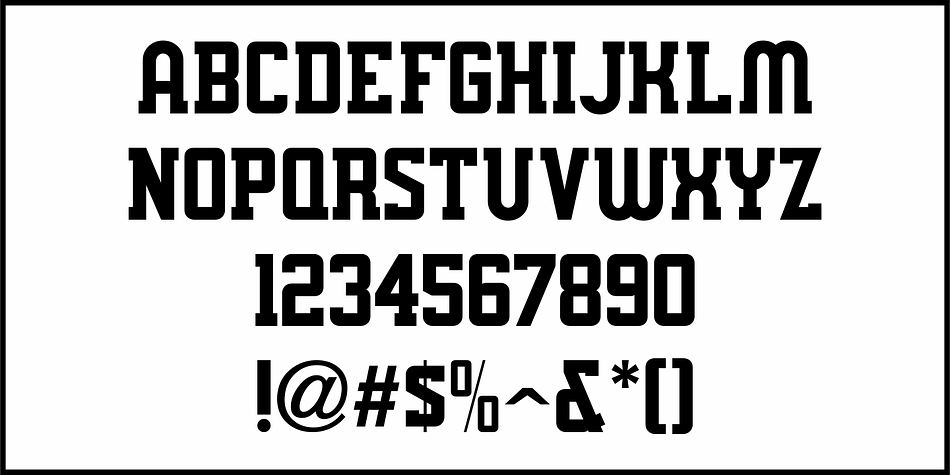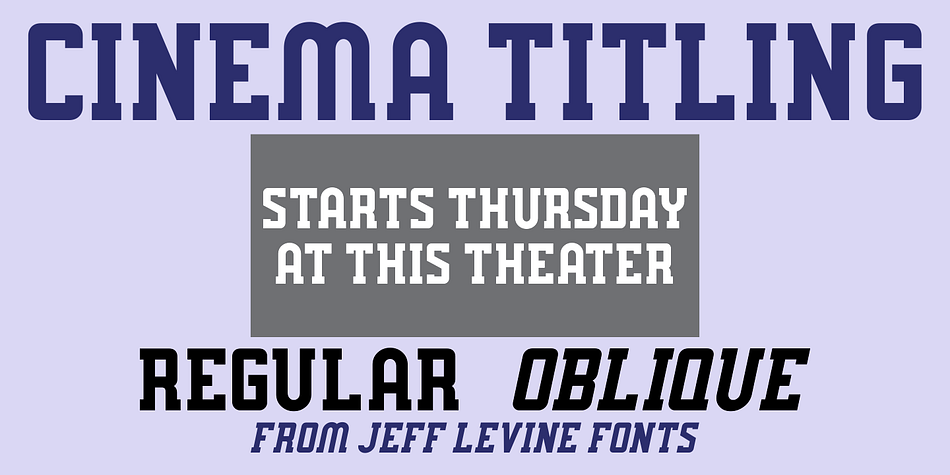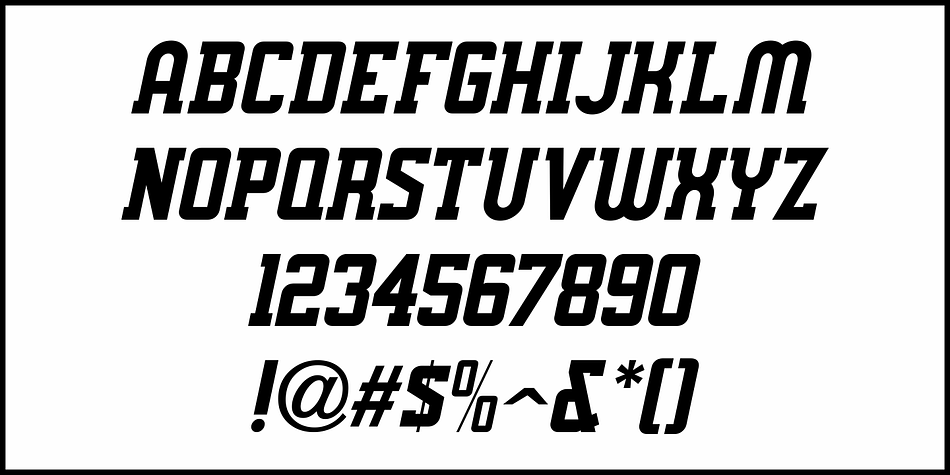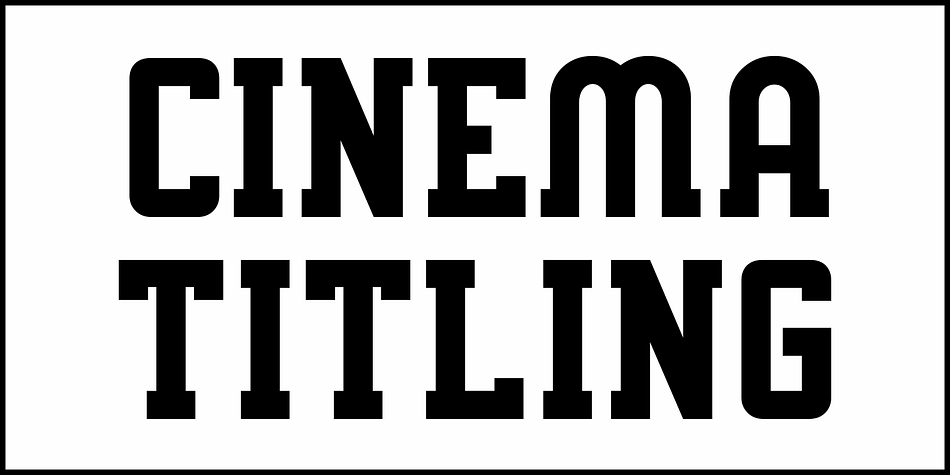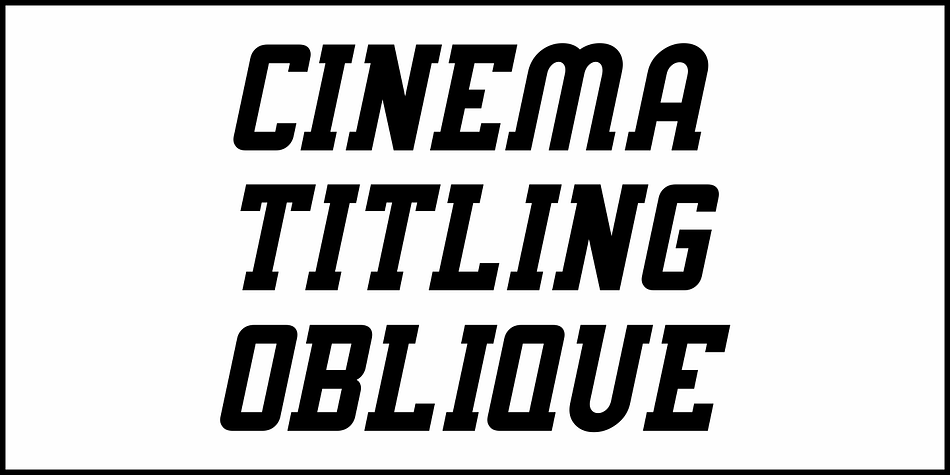
Cinema Titling JNL
Designed by Jeff Levine, Cinema Titling JNL is a display slab font family. This typeface has two styles and was published by Jeff Levine Fonts.
The hand lettered title for the film “Warrior’s Husband” in the May 13, 1933 issue of Motion Picture Herald was rendered in a bold slab serif design with distinctive Art Deco features.
This is now available as Cinema Titling JNL, in both regular and oblique versions.